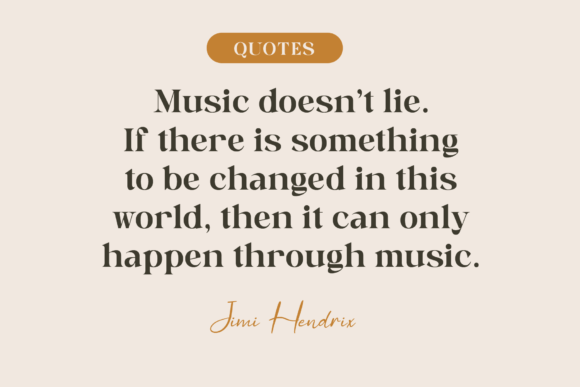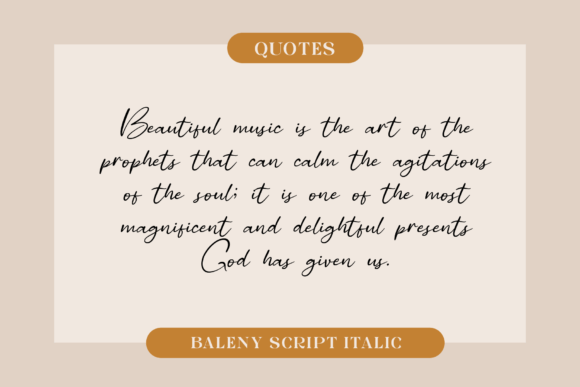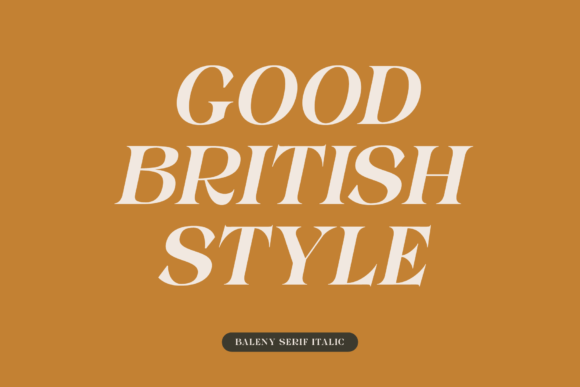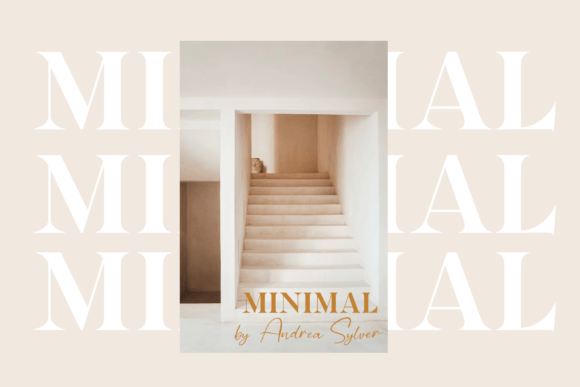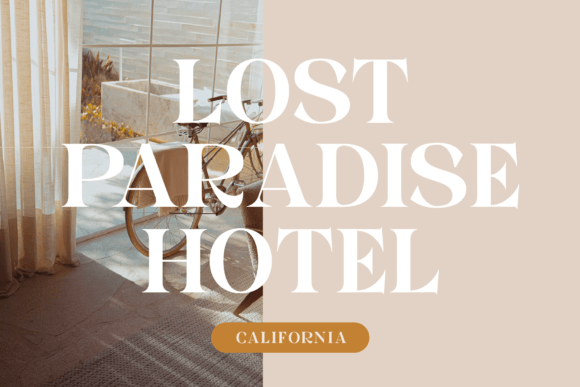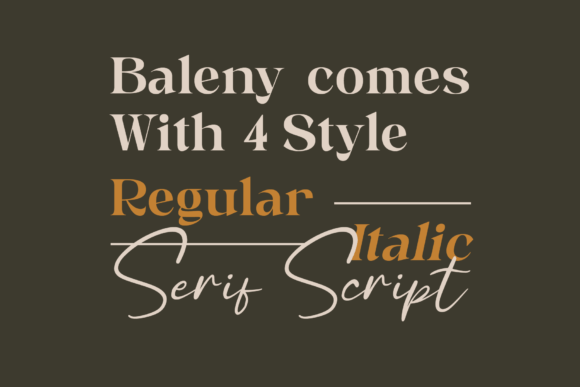
Introducing Baleny Duo Font: Elevate Your Designs with Elegance and Style
In the world of typography, a font duo can make all the difference in creating visually stunning and cohesive designs. Meet Baleny Duo Font, an exquisite pairing of serif and script fonts that will transform your projects with its elegant rhythm and classic charm. Whether you’re a designer, crafter, or DIY enthusiast, Baleny is the perfect addition to your creative arsenal.
The Beauty of Baleny Duo Font
Baleny Duo Font is a thoughtfully crafted font duo that consists of a beautiful serif font and a flowing script font. The serif font boasts a sophisticated and timeless design, while the script font adds a touch of elegance and whimsy. Together, they create a harmonious balance that is perfect for a wide range of design applications.
With its beautiful rhythm, Baleny Duo Font is ideal for creating gorgeous and classy compositions that exude sophistication and refinement. The font duo’s elegant design makes it perfect for use in:
- Branding projects: Create a lasting impression with your brand’s visual identity
- Invitations: Make your guests feel special with beautifully designed invitations
- Web graphics: Elevate your website’s design with elegant typography
- Cards: Design stunning greeting cards, business cards, and more
Key Features of Baleny Duo Font
So, what makes Baleny Duo Font so special? Here are some of its key features:
- Elegant and stylish design: Perfect for creating sophisticated and refined designs
- Beautiful rhythm: Creates a harmonious balance between the serif and script fonts
- Versatile: Suitable for a wide range of design applications, from branding to web graphics
- Easy to use: Simple and intuitive to incorporate into your designs
Why Choose Baleny Duo Font?
With so many font duos available, why choose Baleny? Here are just a few reasons:
- Unique and distinctive: Stand out from the crowd with a font duo that’s both elegant and stylish
- Time-saving: Save time and effort with a font duo that’s easy to use and versatile
- High-quality design: Enjoy a beautifully crafted font duo that’s perfect for professional designs
Tips and Tricks for Using Baleny Duo Font
To get the most out of Baleny Duo Font, here are some tips and tricks to keep in mind:
- Experiment with different combinations: Try pairing the serif and script fonts in different ways to create unique and interesting effects
- Play with font sizes and weights: Use different font sizes and weights to create visual hierarchy and add depth to your designs
- Add a personal touch: Use Baleny Duo Font as a starting point and add your own personal style and flair
In conclusion, Baleny Duo Font is an exquisite font duo that’s perfect for designers, crafters, and DIY enthusiasts looking to elevate their designs with elegance and style. With its beautiful rhythm, elegant design, and versatility, Baleny is sure to become a staple in your creative toolkit. So why wait? Download Baleny Duo Font today and start creating stunning designs that exude sophistication and refinement!